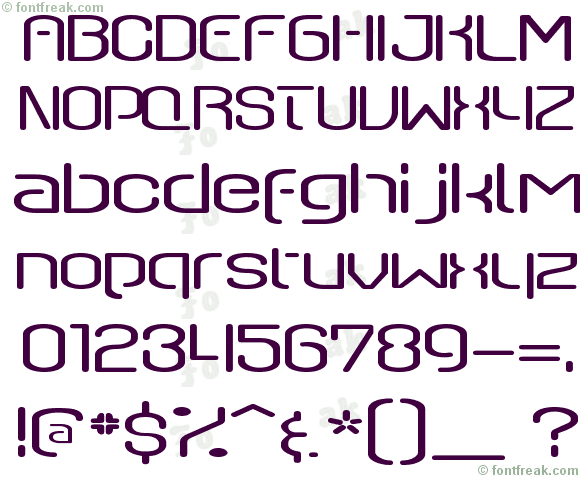
QSwitch Ax
About QSwitch Ax
QSwitch Ax, designed by Ray Larabie in 1997, is a striking sans-serif typeface characterized by its unique blend of geometric shapes and modern aesthetics. This font embodies a clean and contemporary style, featuring a balanced stroke weight that provides a sense of stability and clarity. The design showcases minimal contrast between thick and thin strokes, creating an inviting and approachable look. The spacing is well-considered, ensuring readability while allowing for a stylish presentation. Decorative elements are subtly integrated, enhancing the overall visual appeal without overwhelming the viewer.
QSwitch Ax is versatile, making it suitable for a variety of design applications. It can be effectively used for creative branding, eye-catching movie posters, contemporary restaurant menus, and engaging website headers. Its modern feel makes it an ideal choice for graphic designers looking to create a fresh and innovative identity for their projects. This font also appeals to small business owners who want to establish a memorable presence, as well as content creators seeking to enhance their visual storytelling.
The target audience for QSwitch Ax includes graphic designers, small business owners, and content creators who appreciate a well-crafted typeface that combines style with functionality. This font stands out not only for its aesthetic qualities but also for its approachable and friendly nature, making it a perfect choice for those looking to make a lasting impression. The QSwitch Ax font free download allows users to experiment with this unique typeface in their projects, ensuring that creativity knows no bounds. Overall, QSwitch Ax is a distinctive option that brings a modern flair to any design endeavor.